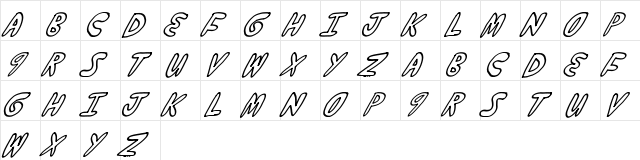
yumernub slanty Regular Font Preview
yumernub slanty Regular
yumernub slanty Regular Font Details
| Foundry | xerographer.com |
| Designer | max infeld |
Design Context for yumernub slanty Typeface
yumernub slanty is a composed and adaptable typeface that performs quietly and consistently across a wide range of design contexts.